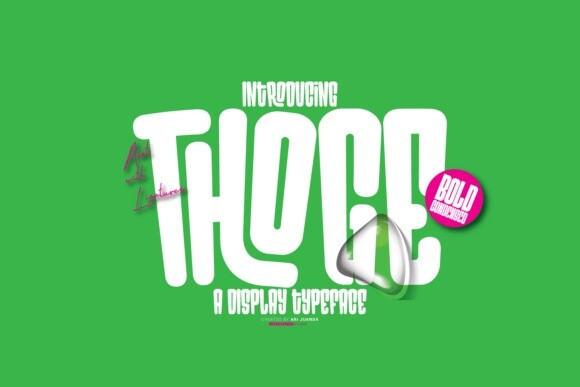
Thoge Display Font
Thoge Display Font is a bold, all caps display font featuring the perfect amount of trendiness. Whether you’re using it for crafting, digital designing, presentations or greeting cards making, it’s perfect!